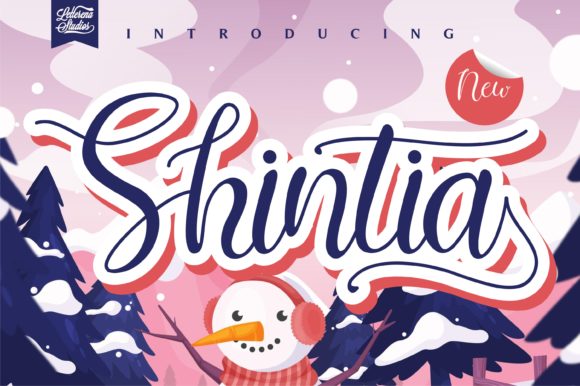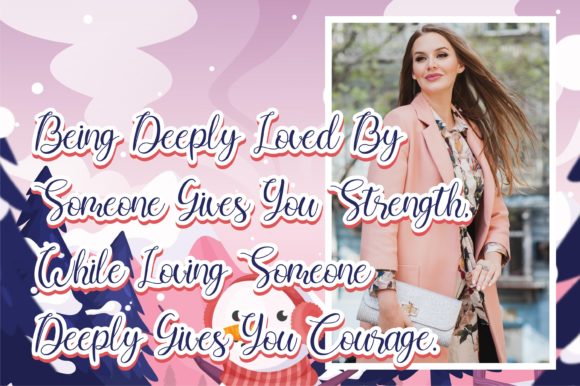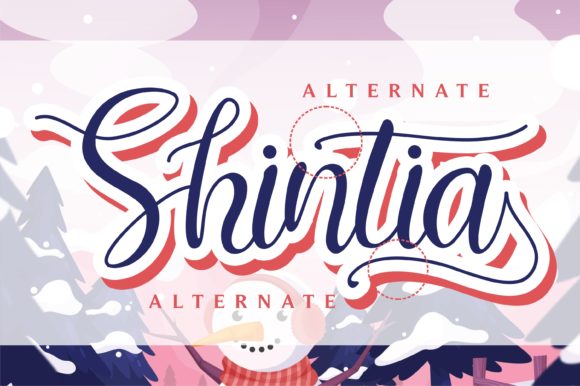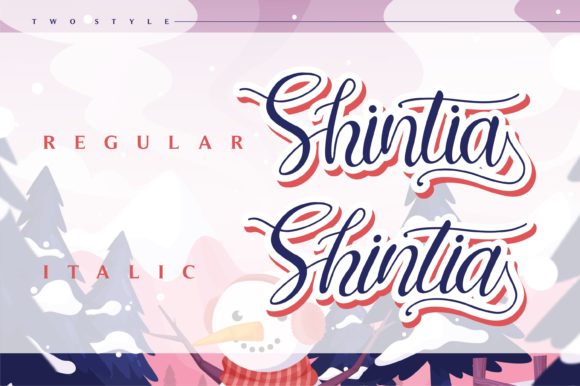
About Shintia Font
Shintia is a delicate and dreamy handwritten font. Its distinct and well rounded letters make this font a true favorite. It is ideal for holiday-themed greeting cards and for any crafting project that requires a romantic touch.